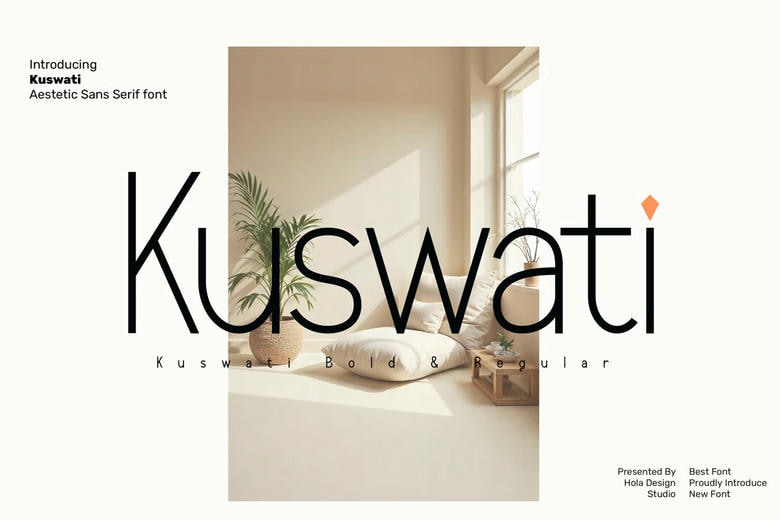
Kuswati Font
Kuswati is a multifunctional sans serif typeface that is meant to be bold and powerful and can be applied in numerous creative works. It has Bold and Regular styles and now it is prepared to uplift your labels, movie screens, poster, titles, gigs, album cover, logos, and everything else to a new level. Kuswati is a safe bet when it comes to making bold, professional visual communication, using its clean and modern aesthetic.
Kuswati Sans Serif Font